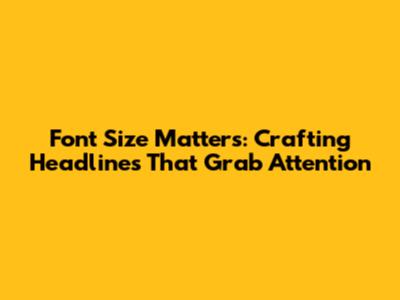
Font Size Matters: Crafting Headlines That Grab Attention
Hey guys! Ever wondered why some news headlines just pop while others fade into the background? Well, a big part of it comes down to something seemingly simple: font size. Yeah, you heard right! The size of the font you use for your headlines can make a world of difference in whether people actually see and engage with your content. It's not just about making things bigger; it's about creating a visual hierarchy that draws the reader in and tells them, "Hey, this is important!"
So, let's dive into the nitty-gritty of headline font sizes and how you can use them to boost your content's visibility and attract more readers. We'll explore the ideal sizes for different platforms, the psychological impact of font size, and some best practices to ensure your headlines are not only readable but also irresistible.
Why Headline Font Size Matters So Much
Let's get real: in today's digital world, we're bombarded with information. Everyone's fighting for attention, and you've only got a split second to grab someone's interest. That's where headline font size comes in as your secret weapon. Font size is a key element in visual communication, helping to establish hierarchy and guide the reader's eye. Think of it like this: the bigger the font, the more important the message seems. It's a visual cue that says, "Pay attention to this first!"
Readability is crucial, obviously. If your headline is too small, people will simply skip over it. If it's too large, it can look overwhelming and even unprofessional. Finding the right balance is key. A well-chosen font size makes your headline easy to read at a glance, even on small screens. This is super important because most people are browsing on their phones these days.
Beyond just readability, font size impacts perception. Larger fonts often convey importance, urgency, or excitement. Smaller fonts might be used for more subtle or nuanced stories. By carefully selecting your font size, you can influence how readers perceive your message before they even read a single word. It’s all about creating the right mood and setting the stage for what's to come.
And let's not forget about SEO (Search Engine Optimization). While font size itself isn't a direct ranking factor, it indirectly affects your SEO by improving user engagement. When your headlines are readable and attention-grabbing, people are more likely to click on them, spend time on your page, and share your content. These are all signals that search engines like Google use to determine the quality and relevance of your website. So, choosing the right headline font size can actually help you rank higher in search results.
Ideal Font Sizes for Different Platforms
Okay, so now we know why font size matters. But what are the ideal font sizes for headlines on different platforms? Well, it's not a one-size-fits-all kind of deal, guys. The best font size depends on where your headline is going to be displayed. Here’s a breakdown:
Websites
For website headlines, you've got a bit more wiggle room. A good starting point for your main H1 headline is around 32 to 40 pixels. This ensures it stands out as the most important element on the page. For subheadings (H2, H3, etc.), you can scale down accordingly. H2s might be around 24 to 30 pixels, and H3s around 18 to 22 pixels. Remember, these are just starting points. You'll want to adjust based on your website's design, font choice, and overall aesthetic. Consider your site's responsiveness too – what looks great on a desktop might be too big or too small on a mobile device. Always test your font sizes on different devices to make sure they're readable and visually appealing.
Mobile Devices
Mobile is where things get a little trickier. Screen real estate is limited, so you need to be extra careful about readability. A good range for main headlines on mobile is 24 to 32 pixels. Subheadings should be smaller, around 16 to 20 pixels. Keep in mind that people are often reading on the go, so clarity is key. Use a clear, easy-to-read font and make sure there's enough contrast between the text and the background. Avoid cramming too much text into your headlines – shorter, punchier headlines work best on mobile.
Social Media
Social media is a whole different beast. Each platform has its own unique layout and font rendering. Generally, headlines on social media should be large enough to grab attention in a busy feed, but not so large that they look obnoxious. For platforms like Facebook and Twitter, a font size of 18 to 22 pixels is usually a good bet. For platforms like Instagram, where visuals reign supreme, your headline might be part of an image or video. In this case, make sure the text is large enough to be easily read on smaller screens. And always, always test your headlines on different devices to see how they look in the actual feed.
Email Newsletters
Email newsletters are another important place to consider headline font size. In this context, your headlines need to stand out from the body text and entice people to click through to your website. A font size of 20 to 24 pixels is a good starting point for main headlines in your newsletter. Use a clear, readable font and make sure there's enough white space around your headlines to make them stand out. Keep your headlines concise and engaging, and use strong verbs and keywords to grab attention. Also, make sure your headlines are properly linked to the corresponding articles on your website.
The Psychology Behind Font Size
Did you know that font size can actually influence how people feel about your content? It's true! The psychology of font size is a fascinating area that can help you create more effective headlines. Larger fonts, as we've discussed, tend to convey importance, urgency, or excitement. They grab attention and make a statement. Think about the headlines you see on tabloid covers – they're often huge and bold, designed to shock and grab your attention.
Smaller fonts, on the other hand, can convey subtlety, elegance, or sophistication. They might be used for more nuanced or intellectual topics. Think about the headlines you see in high-end magazines – they're often smaller and more refined, designed to appeal to a discerning audience. The key is to choose a font size that aligns with the tone and content of your message.
Contrast is another important factor to consider. The difference between the size of your headline and the size of your body text can create a visual hierarchy that guides the reader's eye. A large headline followed by smaller body text signals that the headline is the most important element on the page. This helps readers quickly understand the structure of your content and find what they're looking for.
Font weight also plays a role. Bold fonts tend to convey strength and confidence, while lighter fonts can convey delicacy or fragility. By combining font size, font weight, and contrast, you can create headlines that not only grab attention but also communicate the right message and evoke the desired emotions.
Best Practices for Headline Font Sizes
Alright, let's wrap things up with some best practices for choosing headline font sizes. Follow these tips, and you'll be well on your way to crafting headlines that get noticed:
- Consider your audience: Who are you trying to reach? What are their preferences? A younger audience might be more receptive to larger, bolder fonts, while an older audience might prefer smaller, more readable fonts.
- Think about the platform: Where will your headlines be displayed? As we've discussed, the ideal font size varies depending on the platform. Always test your headlines on different devices to see how they look in the actual context.
- Maintain consistency: Use a consistent font size and style across your website or publication. This helps create a cohesive brand identity and makes your content easier to read.
- Prioritize readability: Above all else, make sure your headlines are easy to read. Use a clear, readable font and make sure there's enough contrast between the text and the background.
- Test, test, test: Don't be afraid to experiment with different font sizes and styles. Use A/B testing to see which headlines perform best with your audience. Pay attention to metrics like click-through rate, time on page, and social shares.
- Don't be afraid to break the rules: While these best practices are a good starting point, don't be afraid to break the rules if it makes sense for your brand and your content. The most important thing is to create headlines that are effective and engaging.
By carefully considering these factors, you can choose headline font sizes that not only grab attention but also communicate your message effectively and help you achieve your goals. So go ahead, experiment, and have fun! Your headlines will thank you for it.